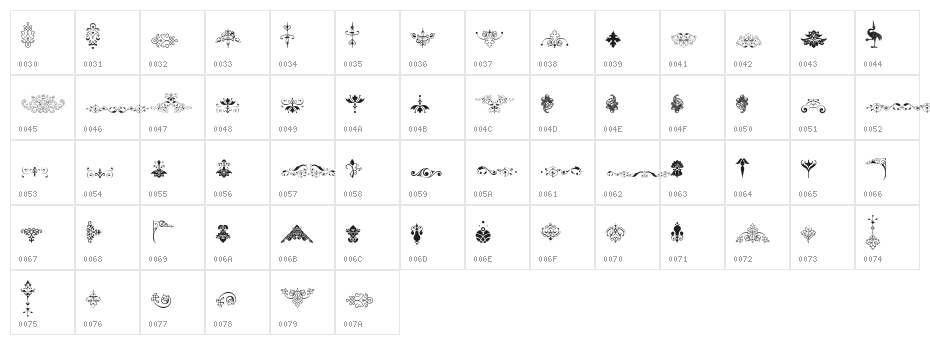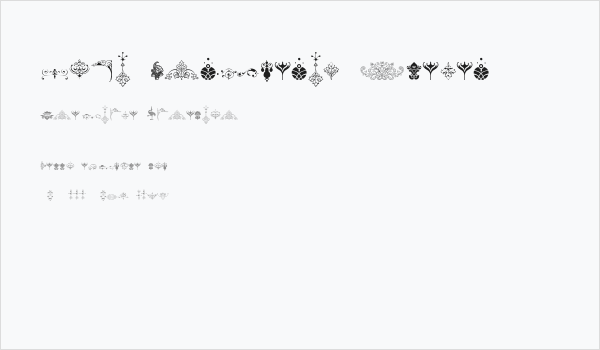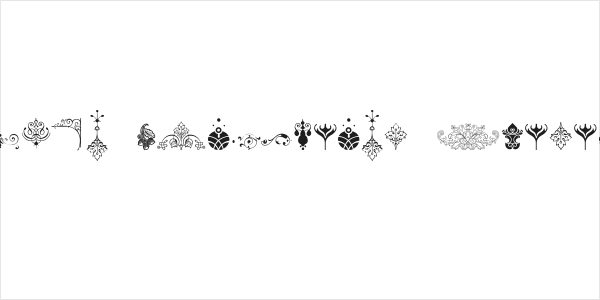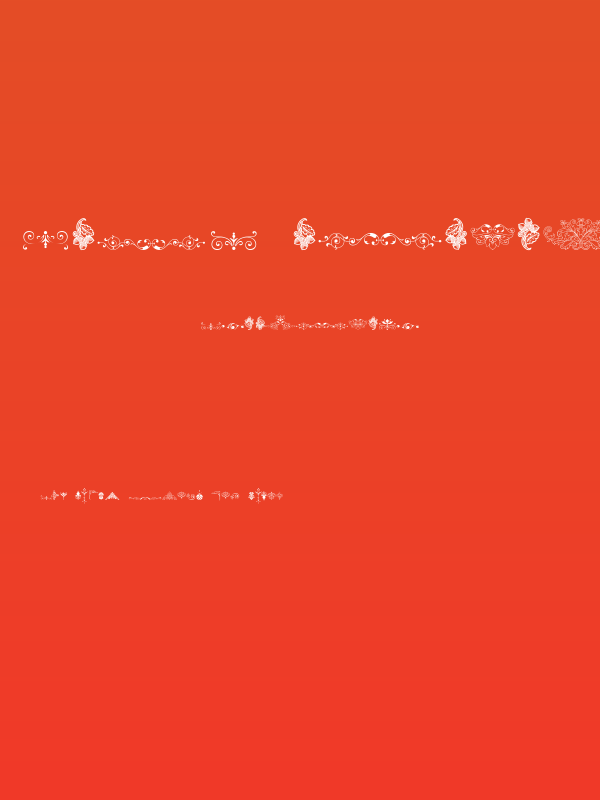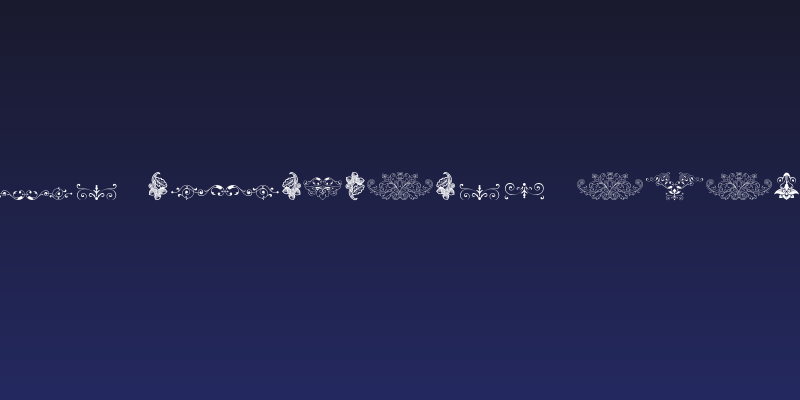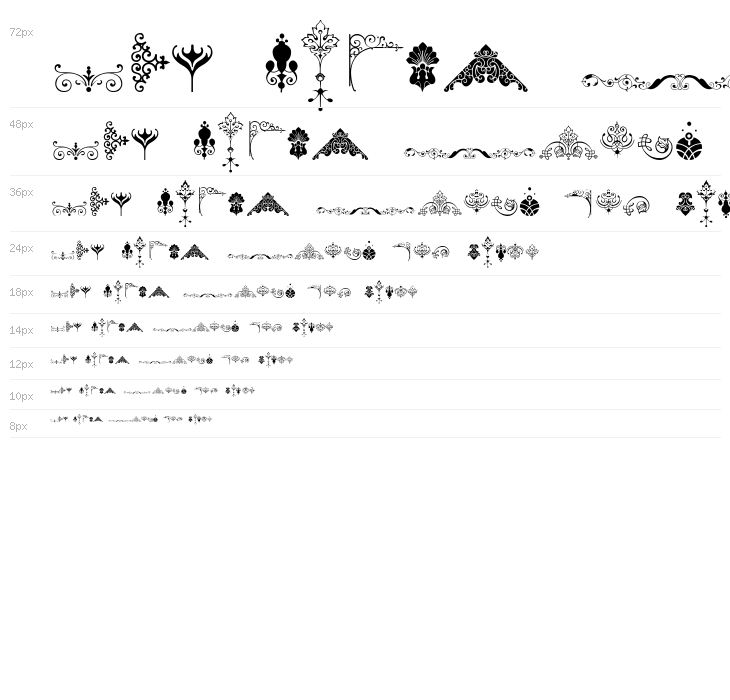
Soft Ornaments Eleven Font
Soft Ornaments Eleven Description
A highly decorative collection of intricate ornamental glyphs and flourishes, featuring symmetrical and nature-inspired motifs with varying line weights and detailed embellishments. The designs range from floral and botanical elements to abstract swirls and geometric patterns, suitable for use as borders, dividers, or embellishments.
| Overall Style | Vintage, Decorative, Ornamental |
| Use Case | Borders, Dividers, Embellishments, Decorative Accents |
| Proposed Projects | Wedding invitations, certificates, book covers, decorative borders, vintage branding, packaging design. |